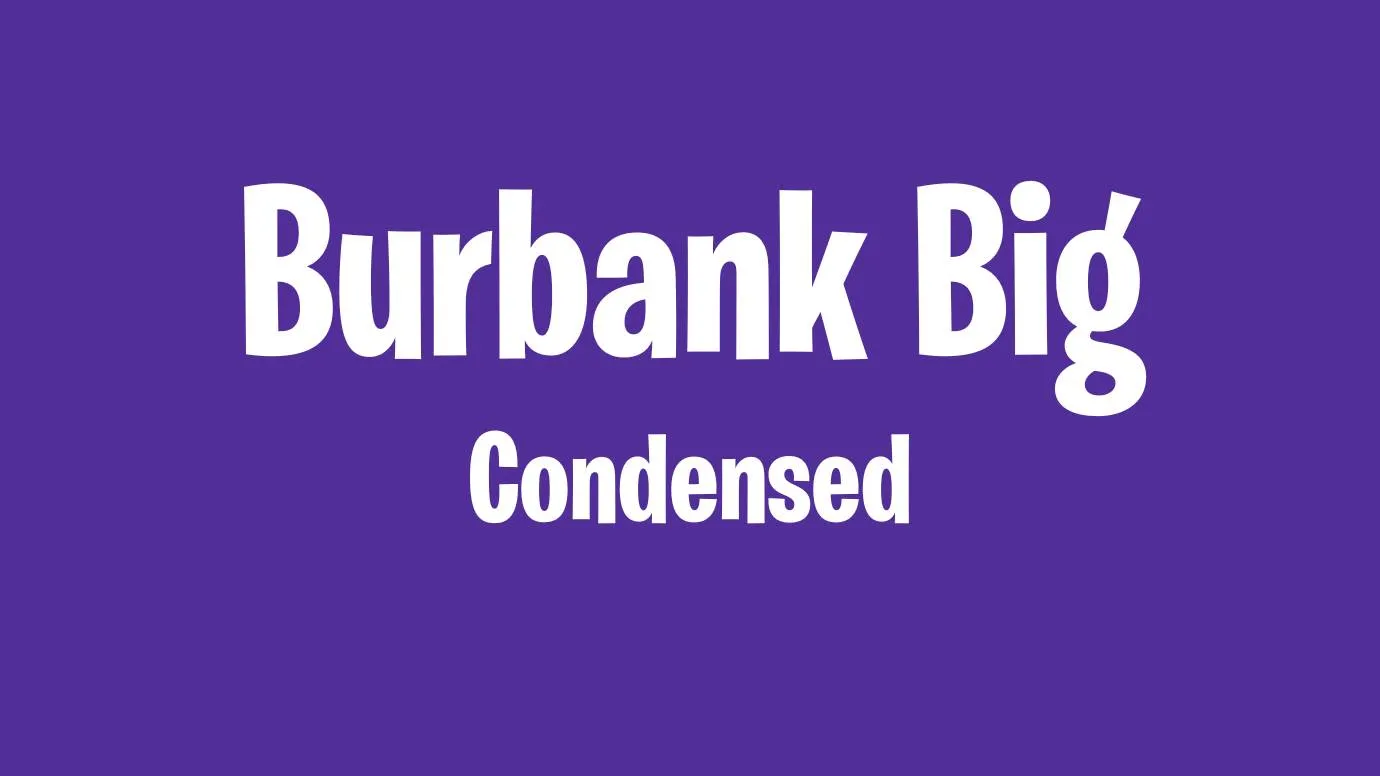
Burbank Big Condensed Font Family is a display and fun typeface designed by Tal Leming many years ago. In the start, it was a small font family but with time many modifications were made. It has different and inspiring texture with strong looks making it perfect to use in your designs.
You can also download Burbank font free on your devices easily. One of the fonts of the Burbank family, Burbank big condensed black was used on the logo of the popular video game Fortnite.